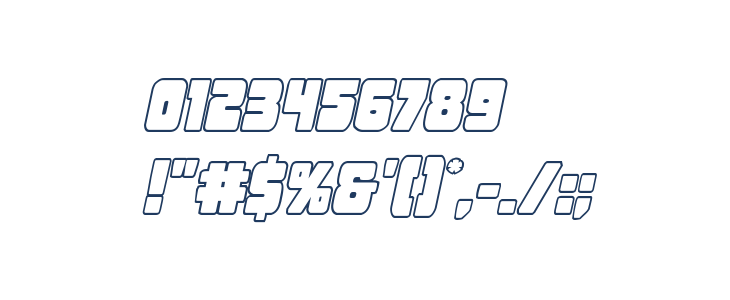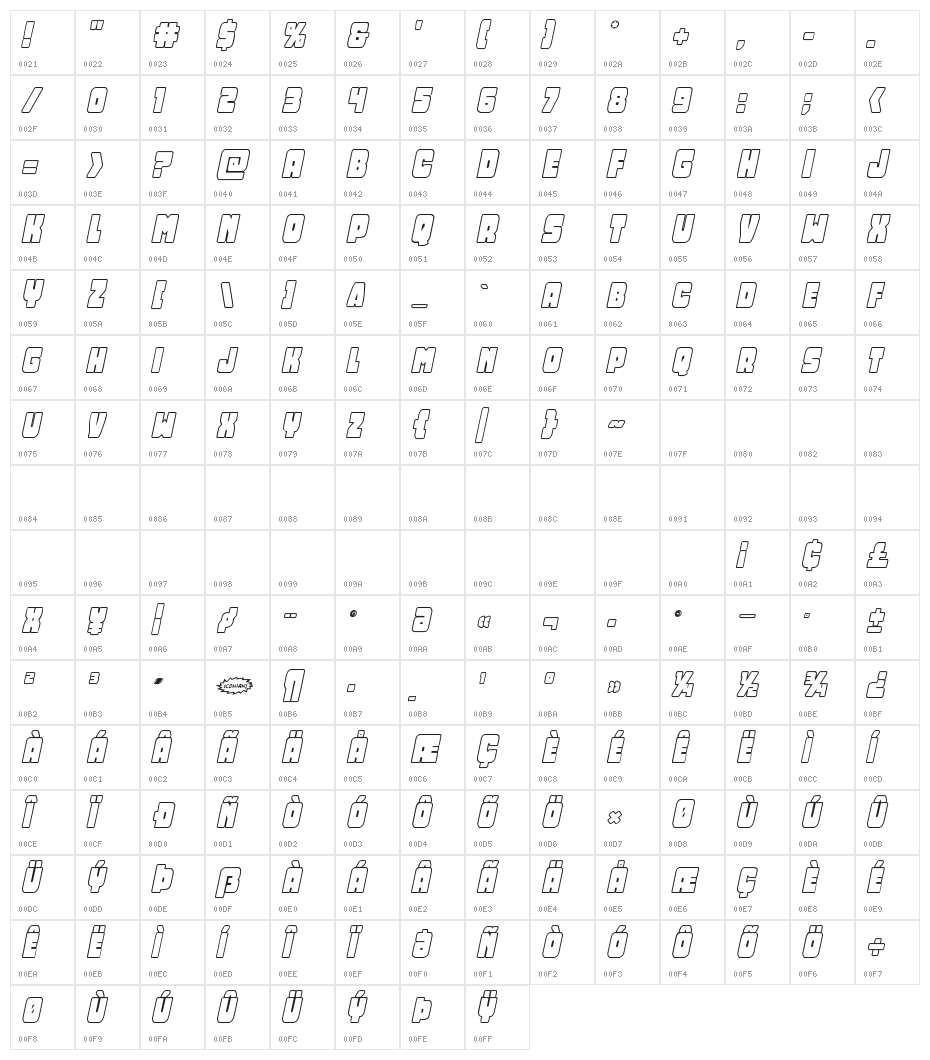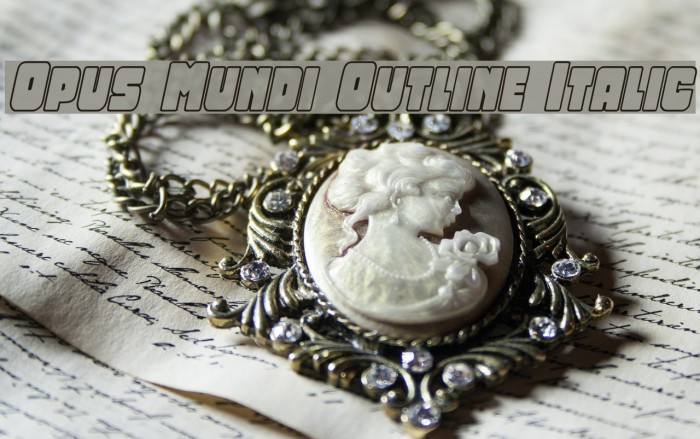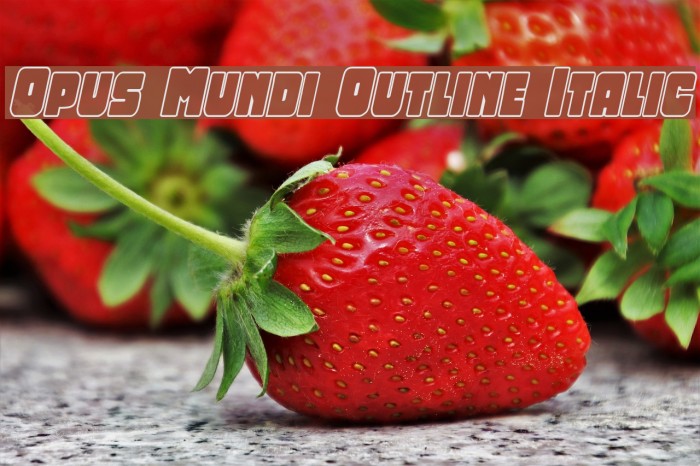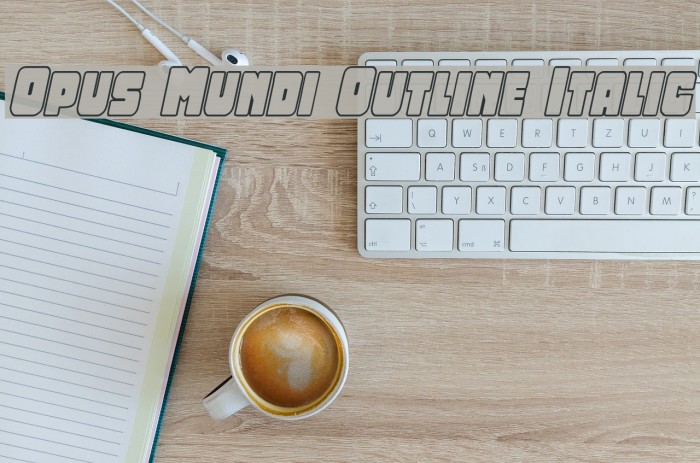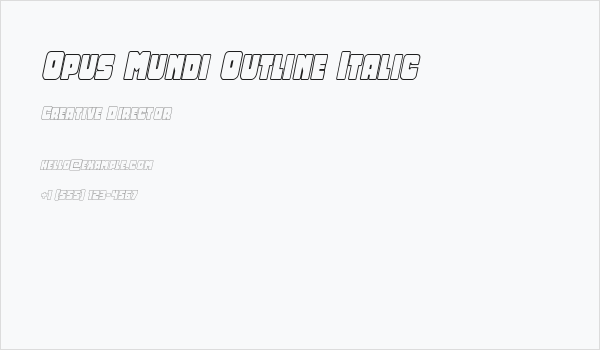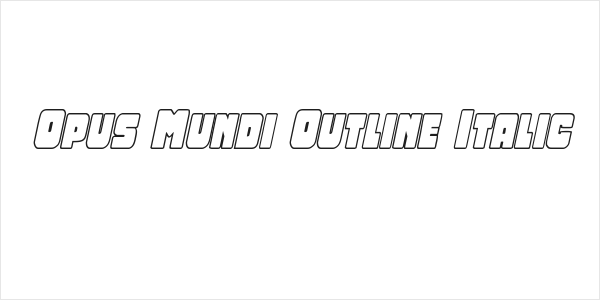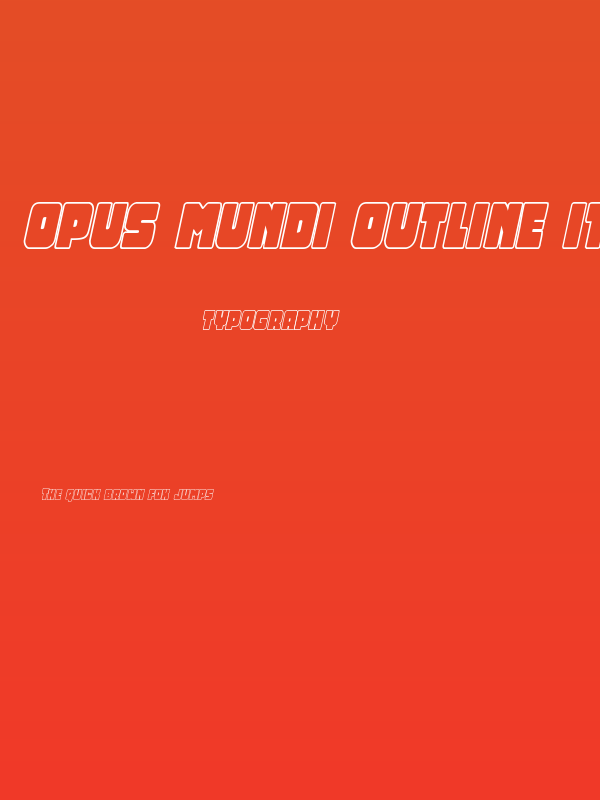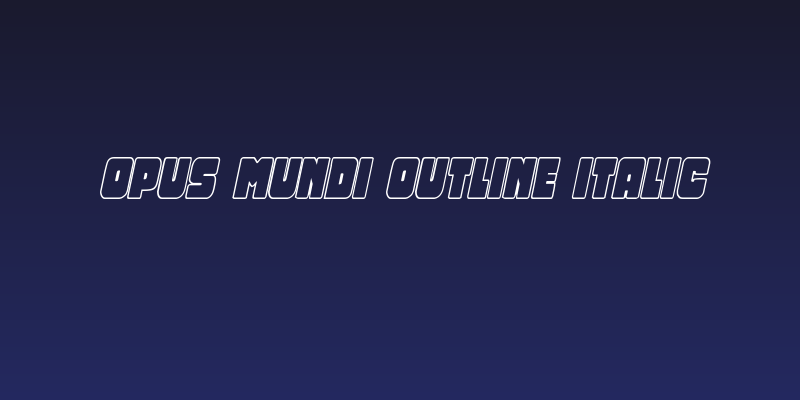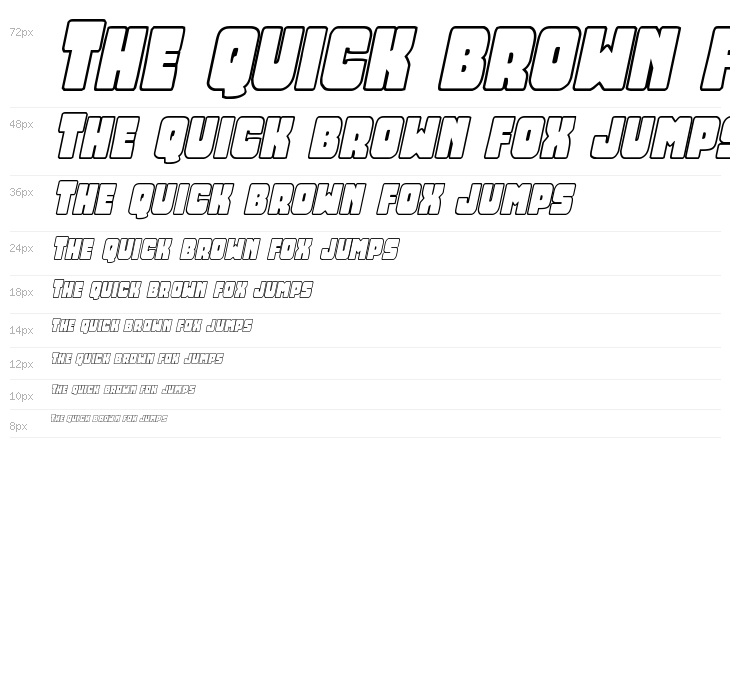
Opus Mundi Outline Italic Font
Opus Mundi Outline Italic Description
This font features a bold, outlined style with a distinct italic slant, giving it a dynamic and modern appearance. The characters are uppercase and numerals, with a consistent thickness throughout the strokes, creating a uniform look. The outline design adds a layer of depth, making each letter stand out prominently. Its geometric shapes and clean lines contribute to a futuristic and tech-inspired aesthetic. The spacing between characters is tight, enhancing its compact and cohesive feel. This font is ideal for projects that require a strong visual impact, such as headlines, posters, or branding materials.
| Proposed Projects | Ideal for headlines, posters, branding, and any design requiring a bold statement. |